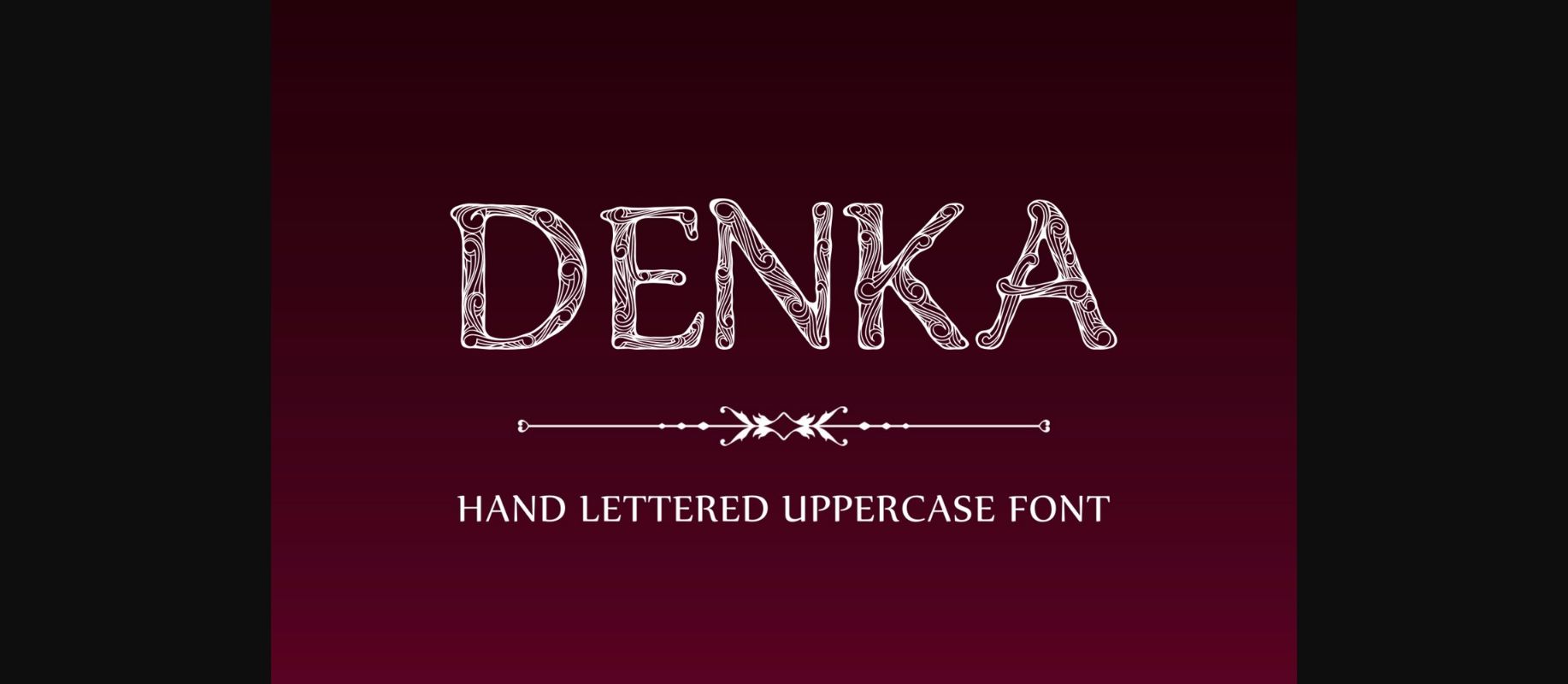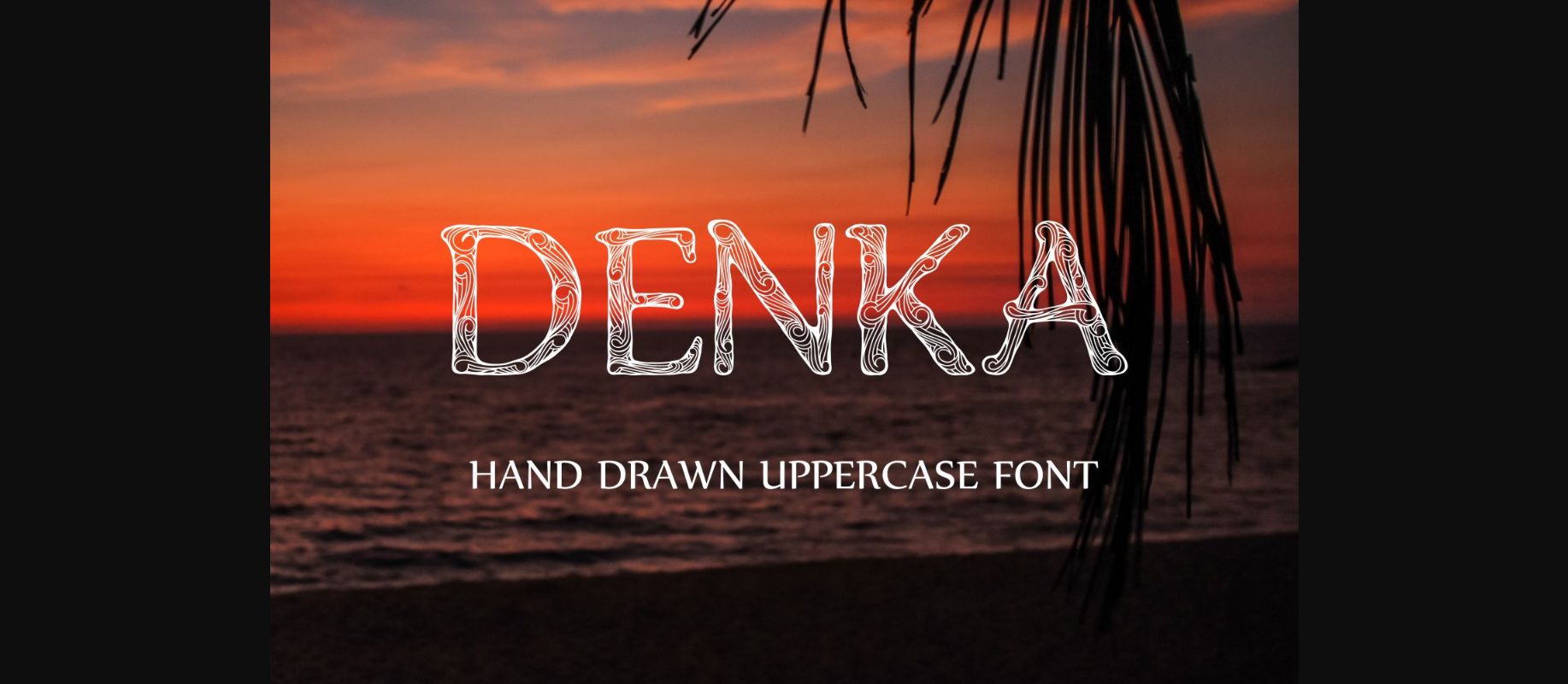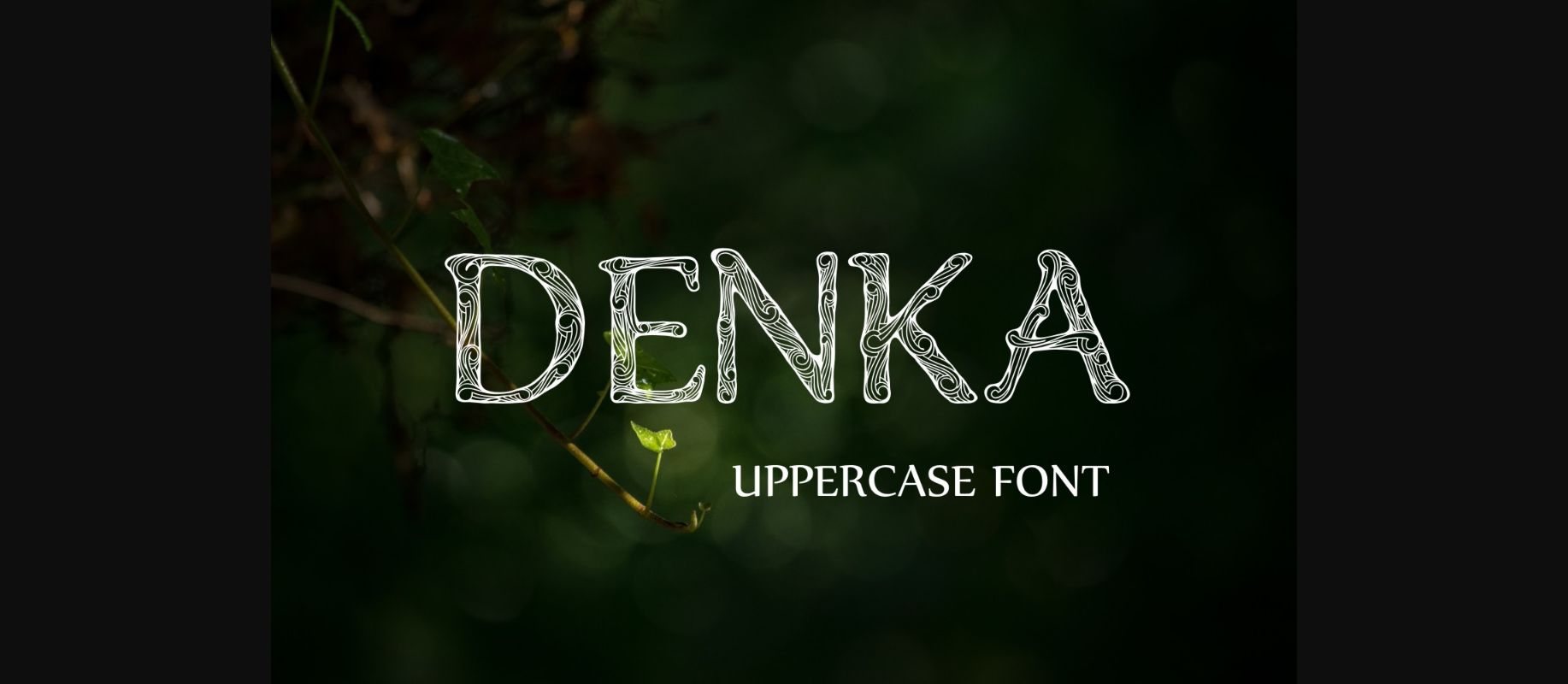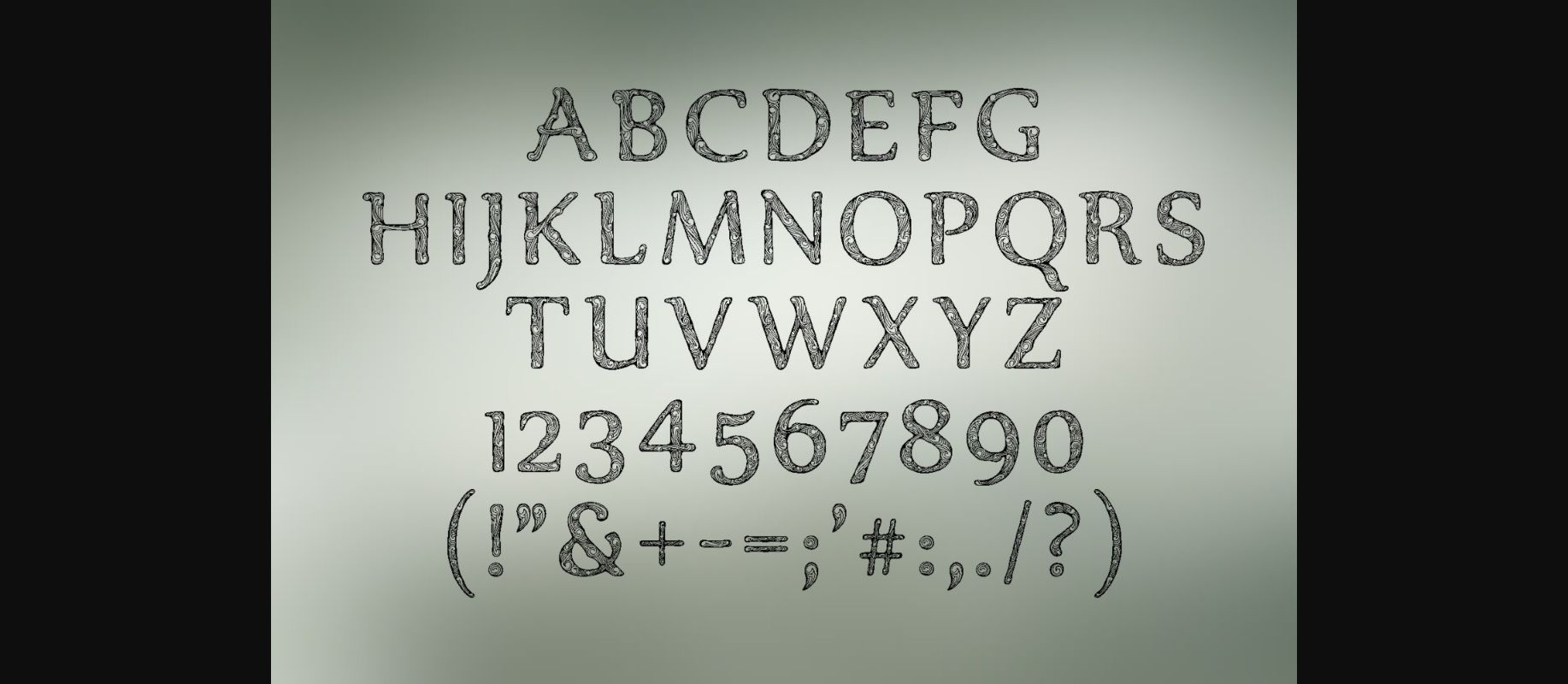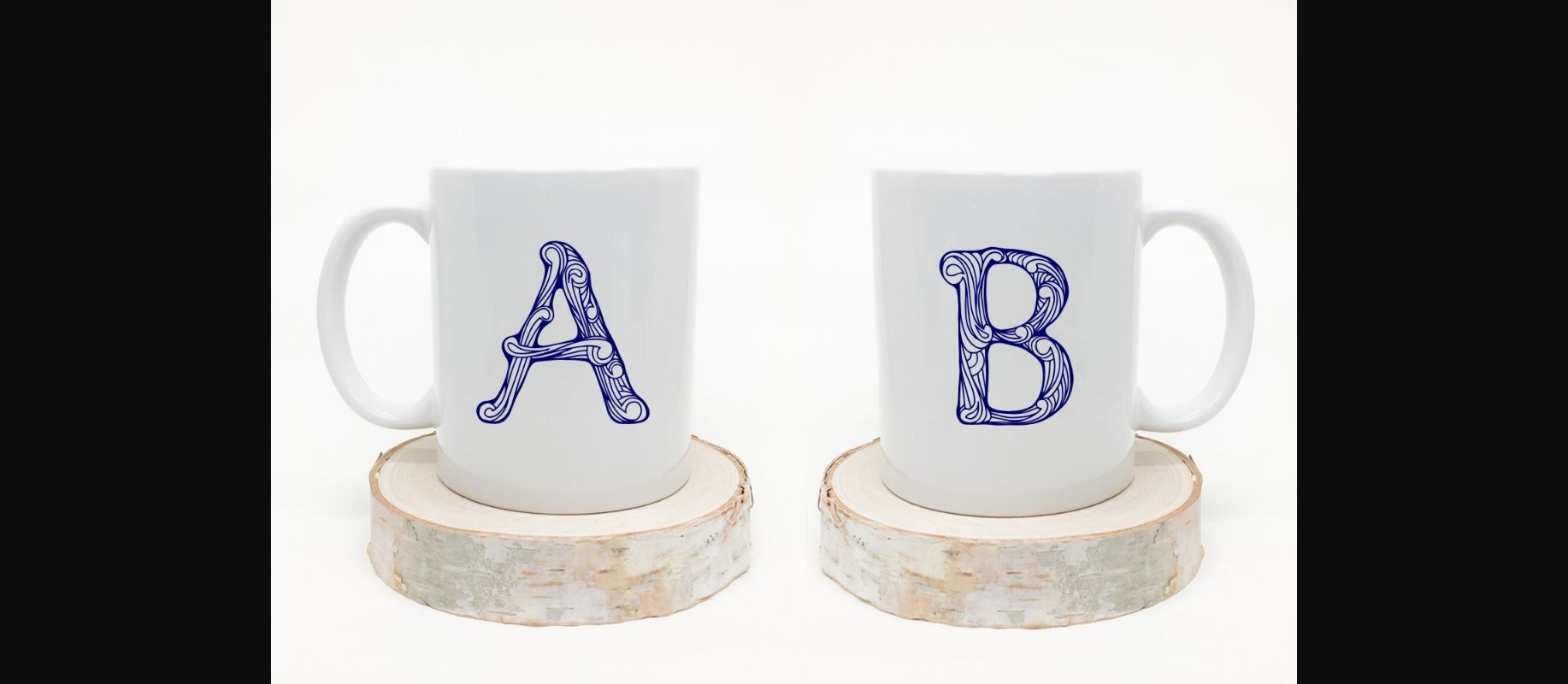
About Denka Font
Denka is a beautifully drawn decorative font, suitable for designs that need to get noticed. This is the perfect font for adding a touch of class and ornate appeal to your projects.